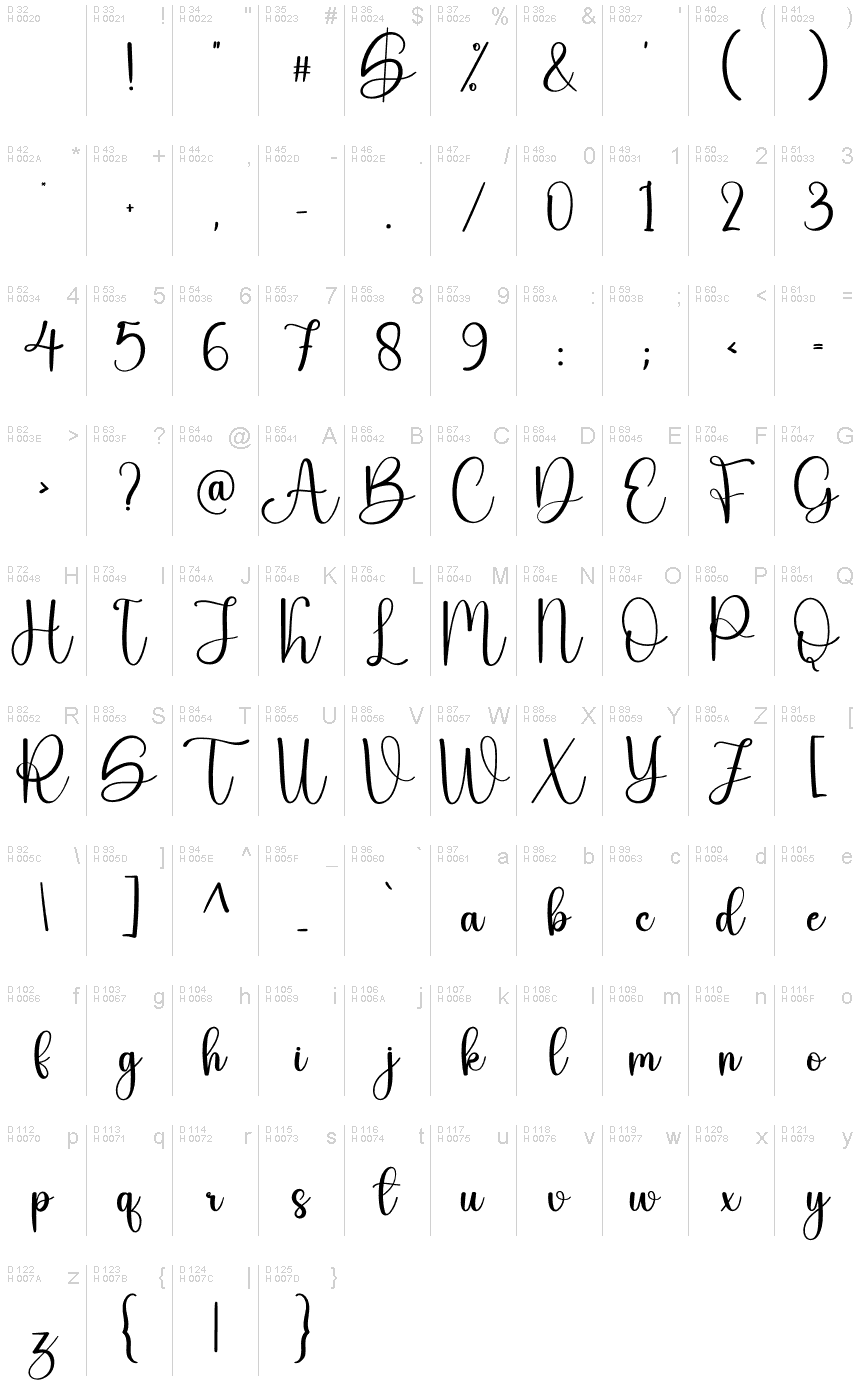
Kindly
Kindly, designed by Harlek Studio, is an elegant calligraphy font that exudes sophistication and charm. With its semi-light weight, it strikes a perfect balance between delicacy and legibility.
This versatile font is suitable for a wide range of projects, including wedding invitations, branding materials, and elegant packaging designs. Its fluid strokes and graceful curves bring an air of refinement to any project. Whether you're creating a logo for a high-end fashion brand or designing a romantic greeting card, Kindly will add a touch of elegance and style to your creations.